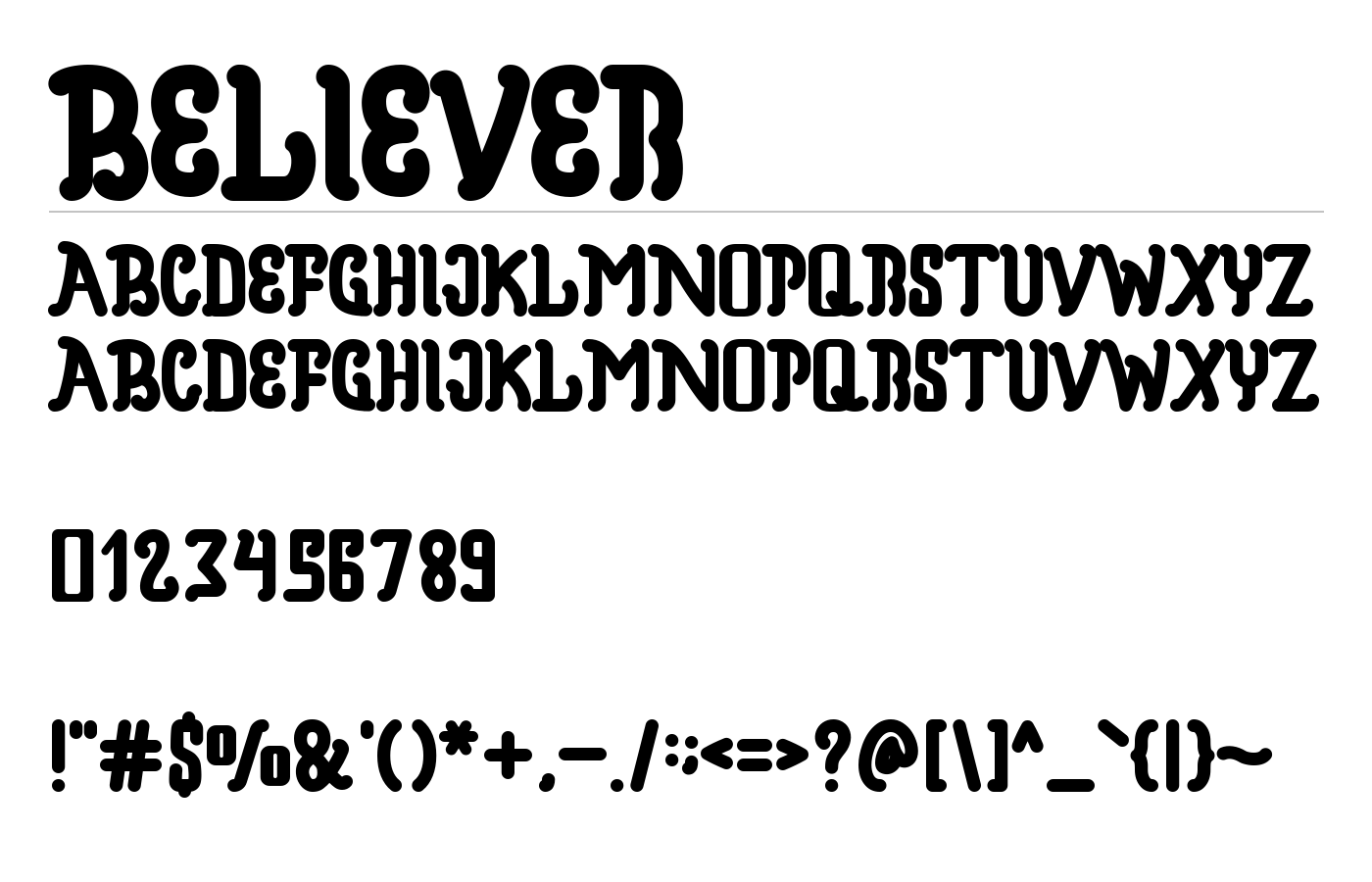
Believer is a bold, playful slab serif font with rounded terminals and a friendly, approachable feel. Its unique letterforms combine thick strokes with subtle curves, giving it a vintage yet modern charm that works great for eye-catching headlines, logos, and creative branding. This font adds character and warmth, making it ideal for projects that want to convey creativity and confidence.
Believer Font